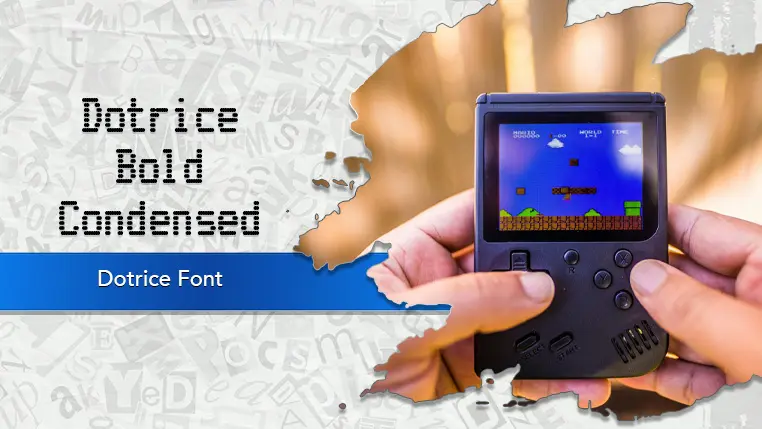
The Dotrice font family may be ideal for you if you enjoy working on an artistic design project. The lively, expressive look of this typeface, which was created by Paul Flo Williams, makes it ideal for Titles or UI elements for retro video games (especially those mimicking 8-bit or 16-bit eras). Movie or game posters aiming for a vintage tech or low-budget sci-fi vibe. Websites or digital projects designed to look like old computer interfaces. Graphs, charts, or data displays where a raw, almost "printed-out" feel is desired. Labels, receipts, or ticket designs that want to mimic an old printer output. and other light-hearted visual projects.
Bold Condensed, Bold Expanded, Bold, Condensed, Expanded, Regular are the six primary font styles of the Dotrice font family. You may build dynamic, visually appealing text layouts with the distinct flair that each style offers. With crisp, readable lines and a relaxed tone.